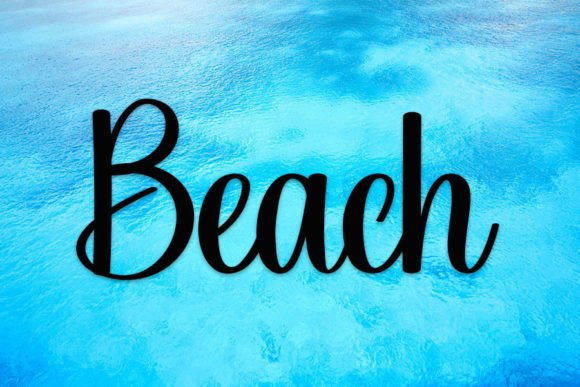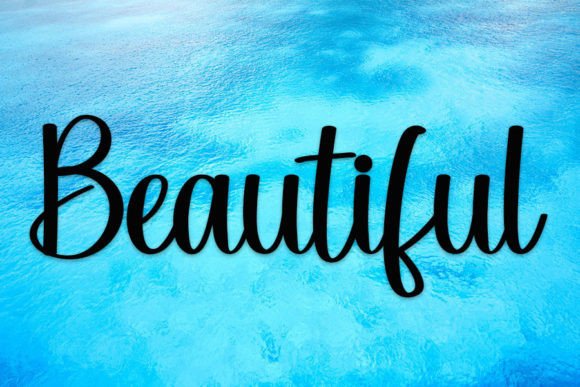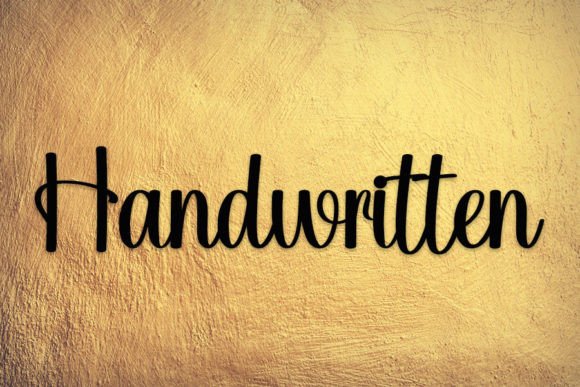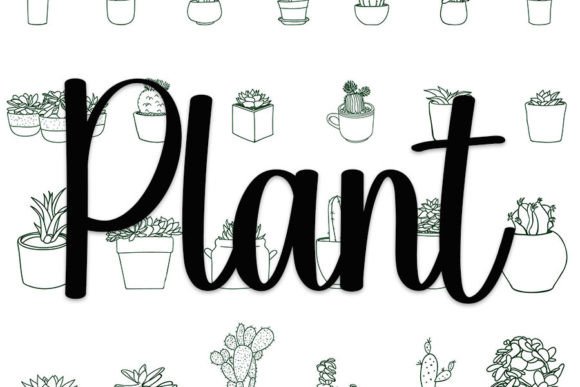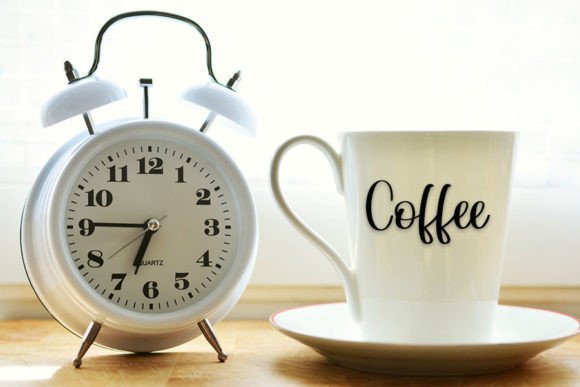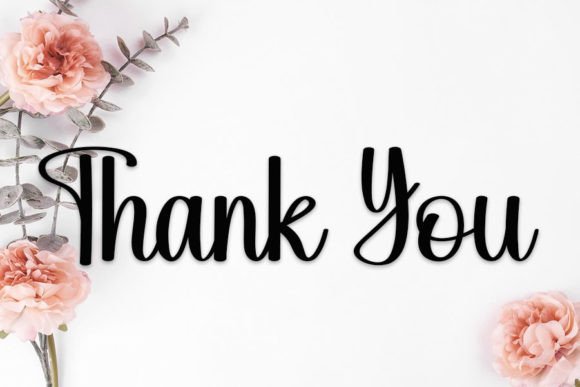
Discover the Elegance of Awesome Font: Elevate Your Designs with a Timeless Touch
Are you on the hunt for a font that adds a touch of elegance and sophistication to your projects? Look no further than the Awesome Font, a stunning handwritten font that is sure to capture your heart. With its incredibly distinct and timeless style, this beautiful font is perfect for designers and crafters looking to create spectacular designs that stand out from the crowd.
The Unique Charm of Awesome Font
Awesome Font is a neat and beautiful handwritten font that boasts an elegant touch, making it an ideal choice for a wide range of projects. Whether you’re working on a branding campaign, a website design, or a crafting project, this font is sure to bring a level of sophistication and refinement that’s hard to find elsewhere. Its unique charm lies in its ability to convey a sense of warmth and personality, making it perfect for designs that require a personal touch.
Key Features of Awesome Font
- Elegant and Refined: Awesome Font features an elegant and refined design that’s perfect for creating sophisticated designs.
- Handwritten Style: With its handwritten style, this font adds a personal touch to any project, making it stand out from more traditional fonts.
- Distinct and Timeless: The font’s distinct and timeless style ensures that your designs will remain relevant for years to come.
- Versatile: Awesome Font is incredibly versatile, making it suitable for a wide range of projects, from branding and advertising to crafting and DIY projects.
Why Choose Awesome Font?
So, why choose Awesome Font over other fonts on the market? For starters, its unique and elegant design makes it an excellent choice for designers looking to create designs that stand out from the crowd. Additionally, its versatility means that it can be used across a wide range of projects, making it a valuable addition to any designer’s toolkit. Perhaps most importantly, however, is the fact that Awesome Font is incredibly easy to use, making it accessible to designers of all skill levels.
Using Awesome Font in Your Designs
Inspiration and Ideas for Using Awesome Font
So, what can you create with Awesome Font? The possibilities are endless! Here are a few ideas to get you started:
- Branding and Logo Design: Use Awesome Font to create a unique and memorable logo for your brand.
- Website Design: Add a touch of elegance to your website with Awesome Font, perfect for headings, titles, and more.
- Crafting and DIY Projects: Use Awesome Font to add a personal touch to your crafting and DIY projects, such as handmade cards, invitations, and more.
- Social Media Graphics: Create stunning social media graphics with Awesome Font, perfect for grabbing attention and engaging your audience.
In conclusion, Awesome Font is a beautiful and elegant handwritten font that’s perfect for designers and crafters looking to add a touch of sophistication to their projects. With its incredibly distinct and timeless style, this font is sure to elevate your designs and help you create spectacular results. Whether you’re working on a branding campaign, a website design, or a crafting project, Awesome Font is an excellent choice that’s sure to impress.